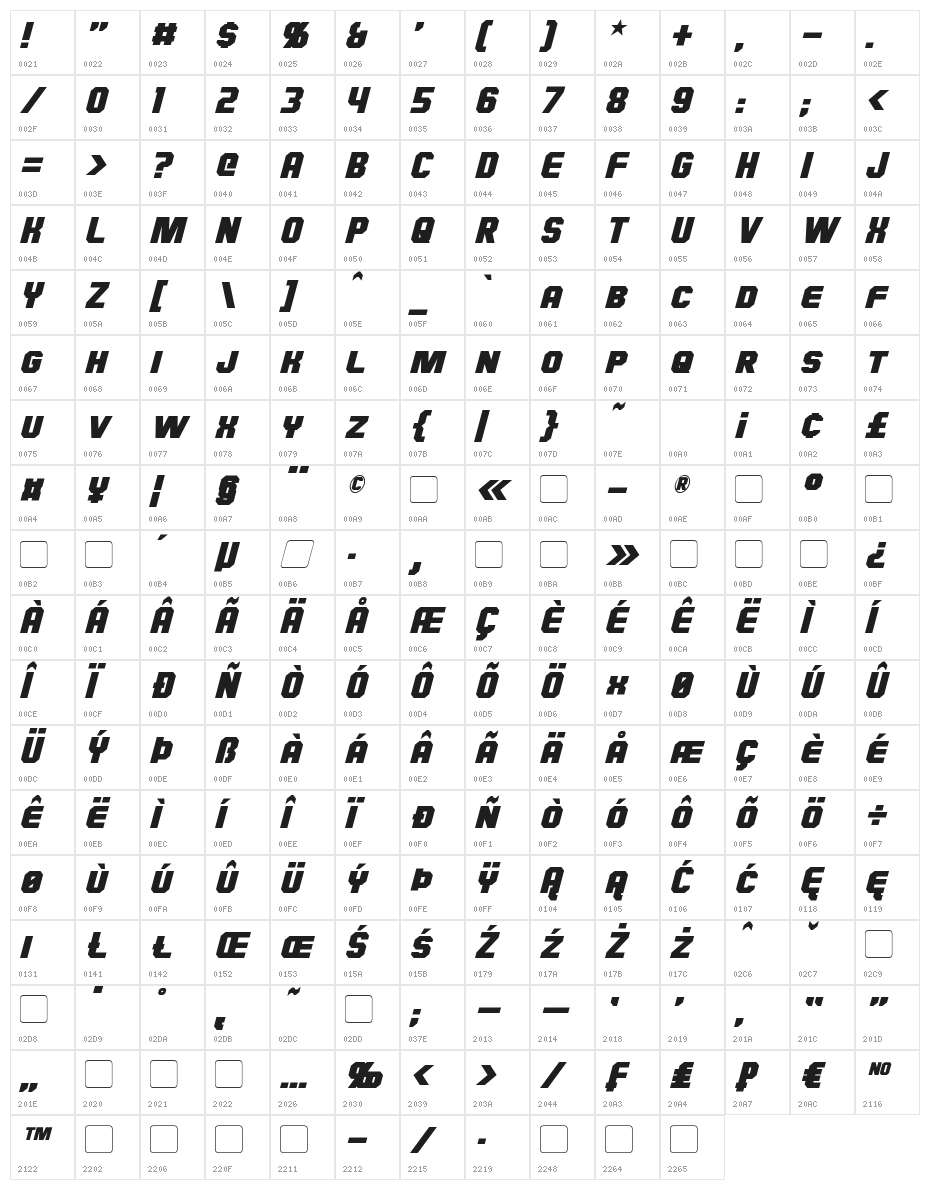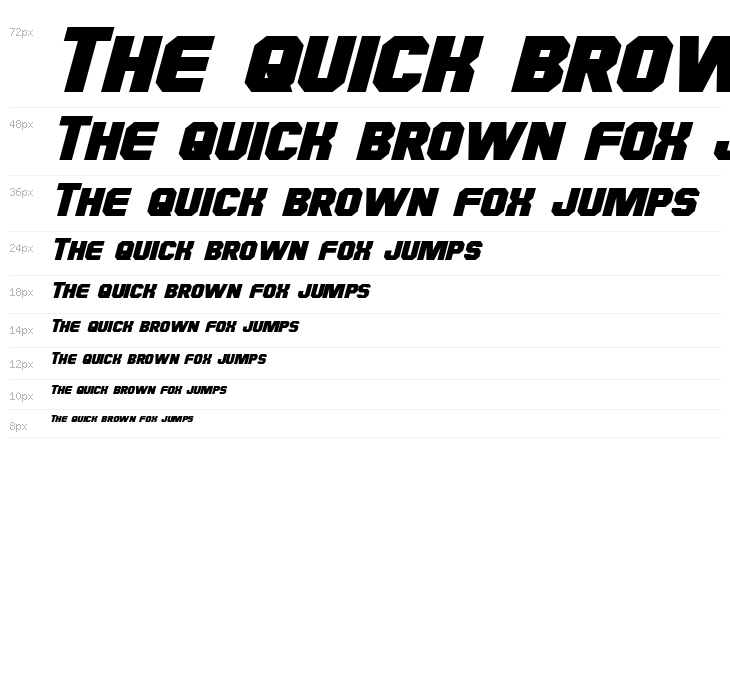
Hauser Italic Font
Hauser Italic Description
This font features a bold and dynamic style with a strong geometric influence. The characters are sharply angled, giving them a futuristic and aggressive appearance. The italic slant adds a sense of motion and speed, making it ideal for projects that require a modern and energetic feel. The uppercase letters are particularly striking, with their thick strokes and angular cuts. The numbers and special characters maintain the same boldness and angularity, ensuring consistency across all glyphs. This font is perfect for creating eye-catching headlines, logos, and branding materials that need to stand out.